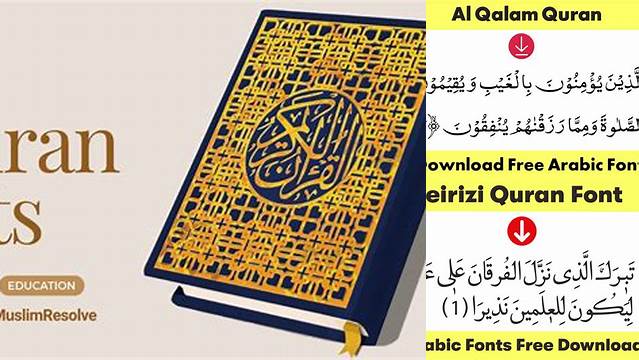
Hey guys! Are you looking for beautiful Arabic fonts to use in your Quran-related projects? Whether you're designing a website, creating Islamic artwork, or just want to read the Quran in a more aesthetically pleasing font, you've come to the right place. Finding the perfect Arabic Quran fonts can be a game-changer, adding a touch of elegance and authenticity to your work. So, let's dive into the world of free Arabic Quran fonts and explore the best options available for download!
What are Arabic Quran Fonts?
So, what exactly are Arabic Quran fonts, and why are they so important? Well, these fonts are specifically designed to display the Arabic script used in the Quran. Unlike standard Arabic fonts, Arabic Quran fonts often incorporate calligraphic styles that have been developed over centuries to honor the sacred text. These fonts aren't just about legibility; they're about conveying the beauty and reverence associated with the Quran. Using the right font can significantly enhance the reading experience and the overall visual impact of any Quranic text. Think of it like this: a beautifully written verse in a stunning font can be much more impactful than the same verse in a plain, generic font. That's the power of Arabic Quran fonts!
Importance of Using Proper Arabic Fonts for Quran
Using proper Arabic fonts for the Quran isn't just about aesthetics; it's about respecting the text and ensuring readability. The Quran is written in a specific script, and some fonts are better suited for it than others. Using a font that accurately represents the Arabic script helps preserve the integrity of the text. Moreover, well-designed Arabic Quran fonts are easier to read, which is crucial for understanding and contemplation. Imagine trying to read a complex text in a font that's cluttered or difficult to decipher – it can be quite frustrating! Proper fonts enhance the reading experience, making it smoother and more enjoyable. This is especially important when reading the Quran, where clarity and focus are essential. Therefore, choosing the right Arabic Quran fonts is a crucial step in honoring and understanding the holy book.
Popular Styles of Arabic Quran Fonts
Now, let's talk about the different styles of Arabic Quran fonts you might encounter. There's a rich history of Arabic calligraphy, and many fonts draw inspiration from these traditional styles. For instance, Naskh is a classic style known for its clarity and readability, making it a popular choice for Quranic text. Then there's Thuluth, a more decorative and elaborate style often used for headings and titles. Kufic is another historical script, characterized by its angular and geometric forms. In addition to these traditional styles, there are also modern Arabic Quran fonts that blend classic elements with contemporary design. Exploring these different styles can help you find the perfect font to match the tone and purpose of your project. Whether you're aiming for a traditional or modern look, there's an Arabic Quran font out there for you!
Using Arabic Quran Fonts in Adobe Photoshop
If you're working on graphic design projects, using Arabic Quran fonts in Adobe Photoshop is a must. Photoshop's powerful text tools allow you to create stunning visuals with Arabic calligraphy. Once you've installed your Arabic Quran fonts, open Photoshop and select the Type tool. Choose your desired font from the font menu, and start typing your Arabic text. You might need to enable the Middle Eastern and South Asian Text Engine in Photoshop's preferences to ensure proper rendering of the Arabic script. Photoshop also offers various text effects and styling options, allowing you to create intricate and visually appealing designs. You can add shadows, glows, gradients, and more to your Arabic Quran fonts to make them truly stand out. Whether you're designing Islamic artwork, posters, or social media graphics, Photoshop and Arabic fonts are a powerful combination!
Creating Islamic Artwork with Arabic Fonts
Speaking of artwork, Arabic Quran fonts are essential for creating beautiful Islamic art. Calligraphy is a central element of Islamic art, and using the right font can make all the difference. Whether you're creating traditional calligraphic pieces or modern digital designs, Arabic Quran fonts can add a touch of authenticity and elegance. Experiment with different fonts, styles, and layouts to create unique and meaningful artwork. You can also combine Arabic text with geometric patterns, floral motifs, and other Islamic design elements. The possibilities are endless! Whether you're a seasoned artist or just starting out, exploring the world of Arabic Quran fonts can open up a whole new realm of creative expression.
Tips for Choosing the Right Arabic Quran Font
Choosing the right Arabic Quran font can feel a bit overwhelming with so many options available. So, let's talk about some tips to help you make the best choice. First, consider the purpose of your project. Are you writing a formal document, designing a poster, or creating a website? The font you choose should match the tone and style of the project. For example, a classic Naskh font might be perfect for a formal document, while a more decorative Thuluth font could be ideal for a title or heading. Also, think about readability. A beautiful font is useless if it's hard to read! Make sure the font is clear and legible, especially for longer passages of text. Finally, don't be afraid to experiment. Try out different Arabic Quran fonts and see what looks best for your project. With a little bit of trial and error, you'll find the perfect font to bring your vision to life.
The History of Arabic Calligraphy and Fonts
The history of Arabic calligraphy is rich and fascinating, spanning centuries and encompassing various styles and techniques. Calligraphy is considered a highly respected art form in Islamic culture, and it plays a significant role in the preservation and dissemination of the Quran. Early Arabic scripts, such as Kufic, were angular and geometric, reflecting the architectural styles of the time. Over time, other styles emerged, including Naskh, Thuluth, and Diwani, each with its unique characteristics and applications. The development of Arabic fonts for printing and digital media has been heavily influenced by these traditional calligraphic styles. Modern Arabic Quran fonts often draw inspiration from these historical scripts, blending classic elegance with contemporary design. Understanding the history of Arabic calligraphy can deepen your appreciation for the art and help you choose fonts that are both beautiful and historically accurate.
Free Arabic Fonts for Quran: Naskh Style
When it comes to free Arabic fonts for the Quran, the Naskh style is a classic choice. Naskh is known for its clarity and readability, making it one of the most widely used scripts for the Quran. It's a relatively simple and elegant style, making it perfect for both print and digital media. Many Arabic Quran fonts available for free download are based on the Naskh script. These fonts are ideal for long passages of text, as their clean lines and consistent letterforms ensure a smooth reading experience. If you're looking for a reliable and versatile font for Quranic texts, Naskh is definitely a style to consider.
Free Arabic Fonts for Quran: Thuluth Style
If you're looking for something a bit more decorative, free Arabic fonts in the Thuluth style might be just what you need. Thuluth is a beautiful and elaborate script often used for headings, titles, and other prominent text. Its flowing curves and intricate letterforms make it a visually stunning choice. While Thuluth might not be the best option for long passages of text due to its complexity, it's perfect for adding a touch of elegance to shorter pieces. Many Arabic Quran fonts that incorporate the Thuluth style are available for free download. These fonts can be used to create eye-catching designs and add a sense of grandeur to your projects. If you want to make a statement with your Arabic calligraphy, Thuluth is a fantastic option.
Free Arabic Fonts for Quran: Kufic Style
For a more historical and geometric look, explore free Arabic fonts in the Kufic style. Kufic is one of the oldest forms of Arabic script, characterized by its angular and geometric shapes. It was widely used in early copies of the Quran and is still admired for its unique aesthetic. Kufic fonts can add a sense of history and tradition to your designs. While Kufic might not be as easy to read as Naskh, it's perfect for decorative elements, logos, and short titles. Several Arabic Quran fonts inspired by the Kufic style are available for free download. These fonts are a great choice if you want to evoke a sense of the past and create designs with a strong historical connection.
Modern Arabic Quran Fonts Free Download
If you're looking for something a bit more contemporary, there are plenty of modern Arabic Quran fonts available for free download. These fonts often blend traditional calligraphic styles with modern design elements, creating a fresh and updated look. Modern Arabic Quran fonts can be a great choice for websites, digital media, and other projects where you want a contemporary feel while still honoring the Arabic script. Many designers are creating innovative and beautiful fonts that push the boundaries of traditional calligraphy. So, if you're seeking a modern twist on Arabic typography, explore the world of contemporary Arabic Quran fonts!
Best Arabic Fonts for Quran Websites
When designing a website dedicated to the Quran, choosing the right best Arabic fonts is crucial. You want fonts that are not only beautiful but also highly readable on screen. A clear and legible font will enhance the user experience and make it easier for visitors to engage with the content. Fonts like Naskh are often a good choice for body text, as their simple and clean lines ensure readability. For headings and titles, you might consider a more decorative font like Thuluth, but make sure it's still easy to read at larger sizes. Testing different Arabic Quran fonts on various devices and browsers is also essential to ensure consistent rendering across platforms. Ultimately, the best Arabic fonts for your Quran website will depend on your design aesthetic and the overall tone you want to convey.
Best Arabic Fonts for Quran Apps
Similar to websites, choosing the best Arabic fonts for Quran apps requires careful consideration. Readability is paramount, especially on smaller screens. Users should be able to read the text comfortably without straining their eyes. Therefore, clear and well-designed fonts are essential. Modern Arabic Quran fonts that are optimized for digital displays can be a great choice. These fonts often feature subtle adjustments to letterforms and spacing to improve readability on screens. Additionally, consider the font size and line spacing to ensure a comfortable reading experience. Testing the fonts on different devices and screen sizes is crucial to ensure consistency and clarity. The best Arabic fonts for your Quran app will help create an engaging and user-friendly experience for your audience.
Free Arabic Fonts for Islamic Design Projects
If you're working on free Arabic fonts for Islamic design projects, the possibilities are endless. From posters and brochures to social media graphics and artwork, Arabic calligraphy can add a touch of elegance and authenticity to your designs. The choice of font will depend on the specific project and the overall style you're aiming for. For formal projects, classic styles like Naskh and Thuluth might be ideal. For more contemporary designs, you can explore modern Arabic Quran fonts that blend traditional elements with modern aesthetics. Experiment with different fonts, layouts, and design elements to create visually stunning and meaningful designs. Whether you're creating a logo, a poster, or a social media graphic, Arabic fonts can help you convey the beauty and richness of Islamic culture.
Free Arabic Calligraphy Fonts for Download
Looking for free Arabic calligraphy fonts for download? You're in luck! There are numerous websites offering a wide variety of fonts that capture the beauty and artistry of Arabic calligraphy. These fonts range from classic scripts like Naskh, Thuluth, and Kufic to more contemporary styles. Downloading Arabic Quran fonts is a great way to add a touch of elegance and authenticity to your projects. Be sure to check the licensing terms before using any font, especially for commercial projects. Many free Arabic calligraphy fonts are available for personal use, while others may have specific licensing requirements. With a little bit of searching, you can find a treasure trove of fonts to enhance your designs.
Where to Find High-Quality Arabic Fonts for Free
Finding where to find high-quality Arabic fonts for free can sometimes feel like a treasure hunt. But don't worry, there are some reliable sources out there. Websites like the League of Movable Type and Font Squirrel offer a selection of Arabic Quran fonts that are free for both personal and commercial use. Islamic websites and forums are also great places to discover fonts, as they often have dedicated sections for Arabic typography. When downloading free fonts, it's always a good idea to check the licensing terms to ensure you're using them legally. Also, preview the font carefully to make sure it meets your quality standards. With a little bit of research, you can find some fantastic high-quality Arabic fonts without spending a dime.
Best Practices for Using Arabic Fonts in Design
Using best practices for using Arabic fonts in design effectively requires careful consideration. Here are a few tips to keep in mind: First, ensure that the font you choose is appropriate for the project. A formal document might call for a classic Naskh font, while a decorative poster could benefit from a more elaborate Thuluth style. Second, pay attention to readability. Choose Arabic Quran fonts that are clear and legible, especially for longer passages of text. Third, be mindful of font size and spacing. Adjust these elements to ensure a comfortable reading experience. Fourth, use Arabic fonts sparingly. Overusing decorative fonts can make your design look cluttered. Finally, always check the font's licensing terms before using it in a project. By following these best practices, you can use Arabic fonts effectively and create stunning designs.
Arabic Fonts for Quran: Licensing and Usage Rights
Understanding Arabic fonts for Quran: licensing and usage rights is crucial to avoid legal issues. Many Arabic Quran fonts are available for free download, but their licensing terms can vary. Some fonts are free for both personal and commercial use, while others are restricted to personal projects only. Before using a font in a commercial project, make sure you have the necessary permissions. If you're unsure about the licensing terms, it's always best to contact the font designer or the website where you downloaded the font. Respecting licensing and usage rights is essential for ethical design practices. So, take the time to understand the terms before using Arabic fonts in your projects.
How to Create Your Own Arabic Quran Font
Creating your own how to create your own Arabic Quran font can be a rewarding but challenging endeavor. It requires a deep understanding of Arabic calligraphy, typography principles, and font design software. You'll need to master the intricacies of Arabic letterforms and ensure that your font is both beautiful and highly readable. Start by studying traditional Arabic scripts like Naskh, Thuluth, and Kufic. Then, sketch out your font's characters, paying attention to consistency and balance. Once you have a solid design, you can use font design software like FontForge or Glyphs to digitize your font. Creating a custom Arabic Quran font takes time and effort, but the result can be a unique and valuable asset for your design projects.
Common Mistakes to Avoid When Using Arabic Fonts
When using common mistakes to avoid when using Arabic fonts, there are several common pitfalls to watch out for. One mistake is choosing a font that is not appropriate for the project. A decorative font might be beautiful, but if it's not legible, it's not a good choice for body text. Another mistake is using too many different Arabic Quran fonts in a single design. This can make your design look cluttered and unprofessional. Also, be mindful of font size and spacing. Small font sizes and tight spacing can make text difficult to read. Finally, always double-check that your Arabic text is displaying correctly. Incorrect rendering can distort the meaning of the text. By avoiding these common mistakes, you can ensure that your Arabic typography is both beautiful and effective.
Arabic Fonts for Different Islamic Cultures
Arabic fonts for different Islamic cultures can vary significantly, reflecting the rich diversity of the Muslim world. Different regions and cultures have developed their own unique calligraphic styles and preferences. For example, fonts used in Southeast Asia might have different characteristics compared to those used in the Middle East or North Africa. Exploring Arabic Quran fonts from different cultures can be a fascinating way to appreciate the global reach of Islam and the diversity of its artistic traditions. When choosing Arabic fonts for your projects, consider the cultural context and select fonts that are appropriate for your target audience.
The Future of Arabic Typography and Fonts
The the future of Arabic typography and fonts is bright, with exciting developments on the horizon. As technology advances, new possibilities are emerging for Arabic font design and usage. We're seeing the development of more sophisticated Arabic fonts that are optimized for digital displays, as well as innovative techniques for creating dynamic and interactive typography. The increasing use of Arabic on the internet and in digital media is driving demand for high-quality Arabic fonts that are both beautiful and functional. As designers continue to explore the rich heritage of Arabic calligraphy, we can expect to see even more creative and innovative Arabic fonts in the future.
Free Arabic Fonts for Quran: FAQs
Let's tackle some free Arabic fonts for Quran: FAQs! One common question is, "Where can I find free Arabic fonts?" As we've discussed, websites like the League of Movable Type and Font Squirrel are great resources. Another frequent question is, "Are Arabic Quran fonts free for commercial use?" It depends on the font's licensing terms, so always check before using a font in a commercial project. Some people also ask, "How do I install Arabic fonts on my computer?" The process is usually straightforward, involving copying the font files into your system's font directory. Hopefully, these FAQs have addressed some of your questions about free Arabic fonts for the Quran!
Final Thoughts on Free Arabic Quran Fonts
So there you have it, a comprehensive guide to free Arabic Quran fonts! Finding the right font can make a huge difference in the look and feel of your projects. Whether you're designing a website, creating artwork, or just want to read the Quran in a beautiful font, there are plenty of options available for free download. Remember to consider the purpose of your project, choose fonts that are clear and legible, and always respect the licensing terms. With a little bit of searching and experimentation, you can find the perfect Arabic Quran fonts to enhance your work and add a touch of elegance and authenticity. Happy designing!